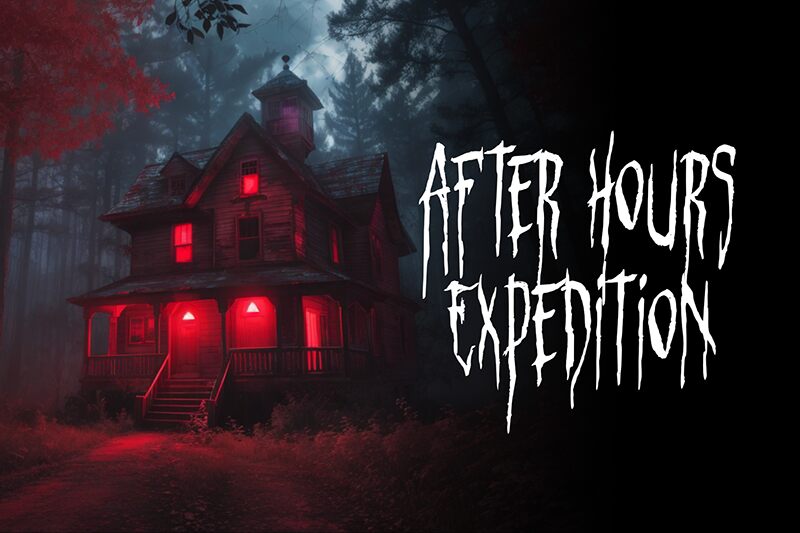
Phantom Phrases font by Horror Font is a horror-themed typeface designed to add an unsettling, spooky atmosphere to any project. With jagged and dramatic letterforms, this expressive free font embodies a sinister and tense vibe. Its eerie nature makes it perfect for creating a sense of drama and unease, capturing the imagination and curiosity of your audience.
Suitable for a broad range of creative uses, Phantom Phrases is perfect for conjuring up impressive book covers, terrifying movie posters, riveting video game titles, or even mysterious social media posts. Its spooky appeal is likewise ideal for websites and blogs that emphasize atmospheric and adventurous storytelling. Channel its dramatic air into magazine layouts, stationery, invitations, signage, logos, and branding ideas.